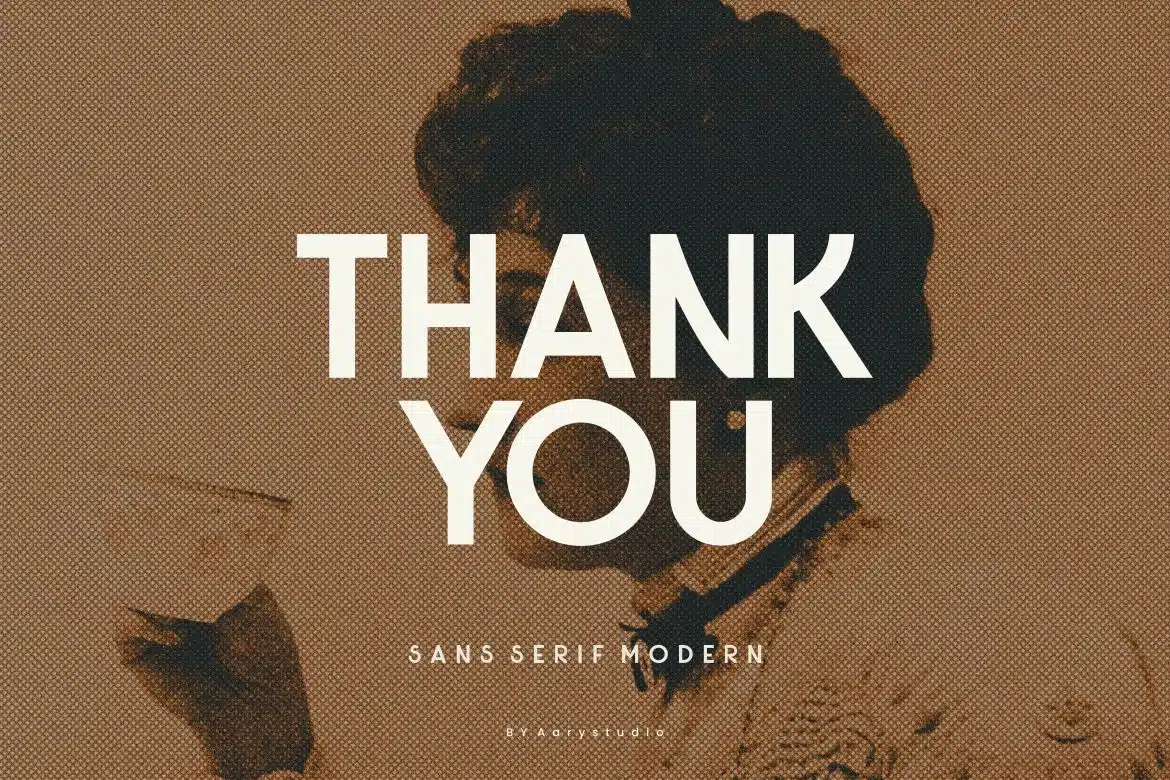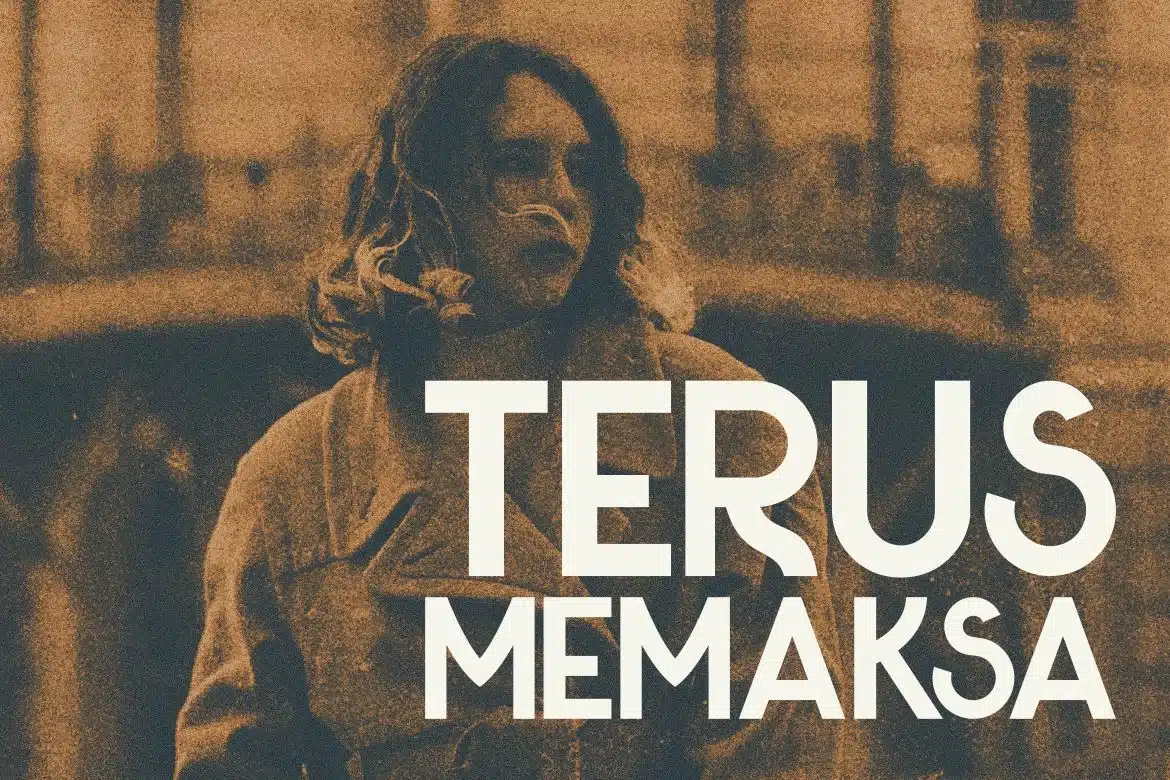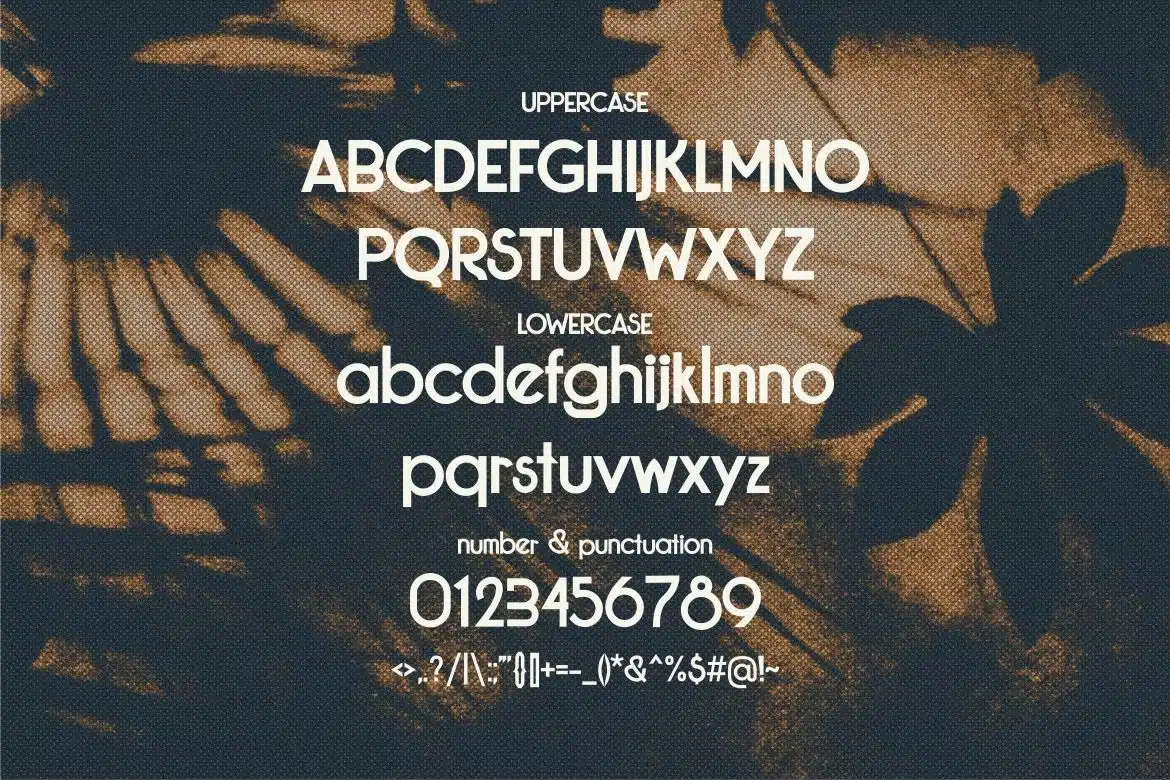
Bekmonz – Sans Serif Font
Introducing Bekmonz , elegant simple and modern Sans Serif font. The feel is elegant and beautiful.
This font brings you a beautiful and modern atmosphere.
suitable for posters, book covers, cards, merchandise, etc.